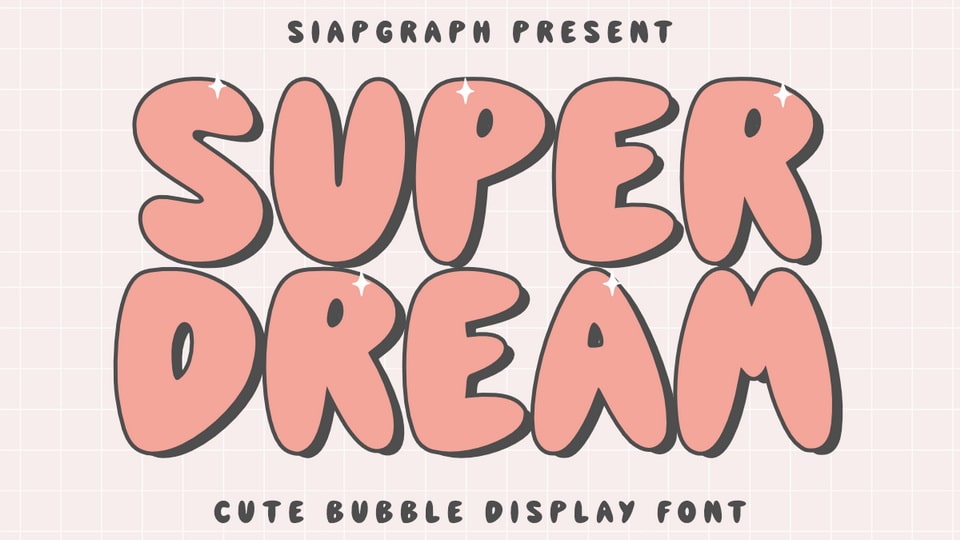
Download Super Dream font, a cute and incredibly playful bubble typeface that instantly brings a burst of joy and whimsical charm to any design.
Designer: SiapGraph